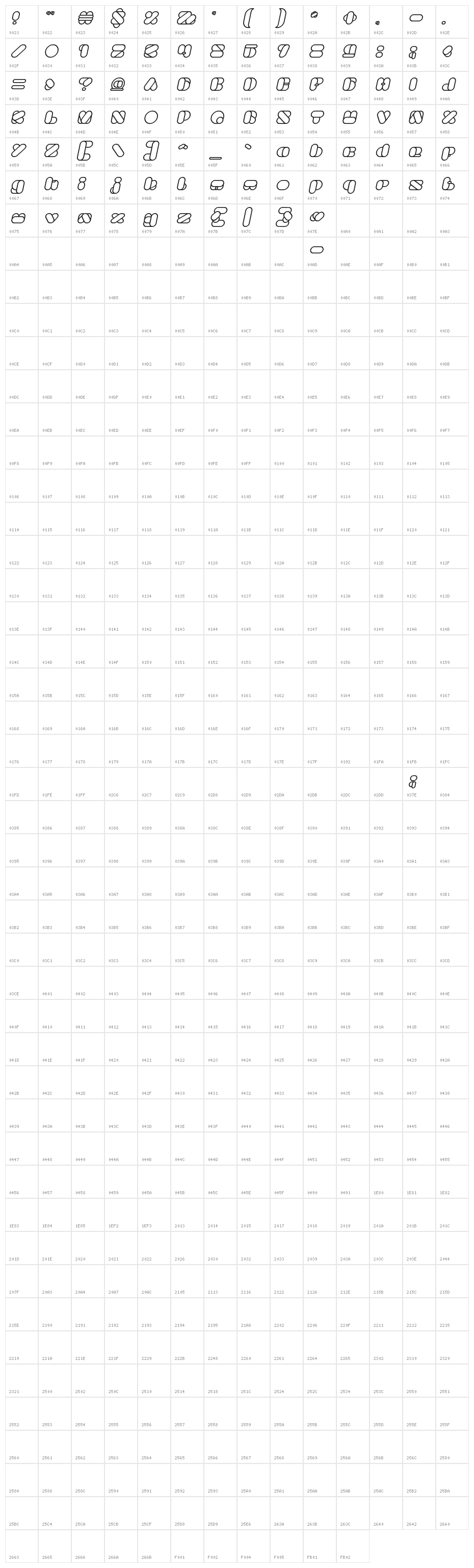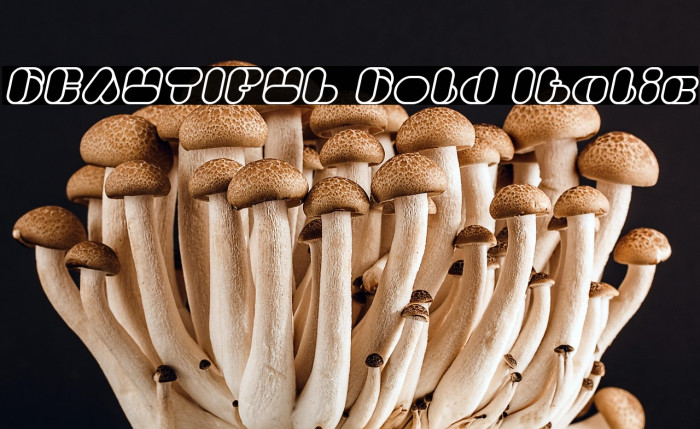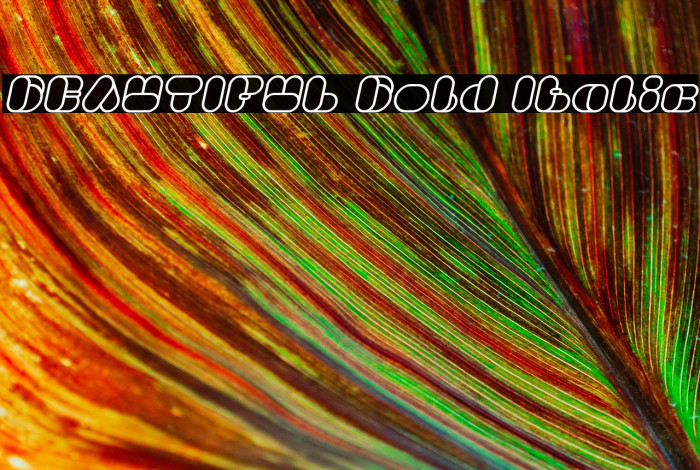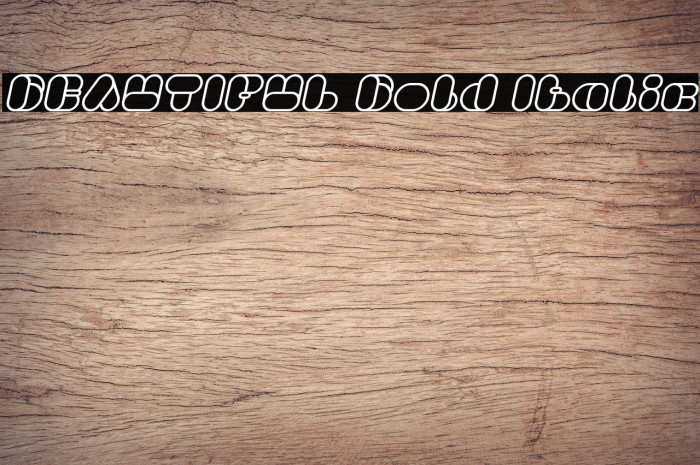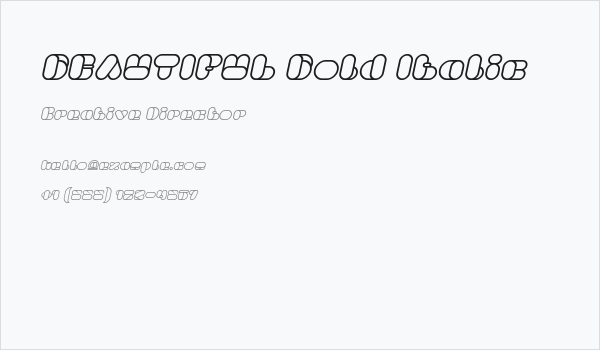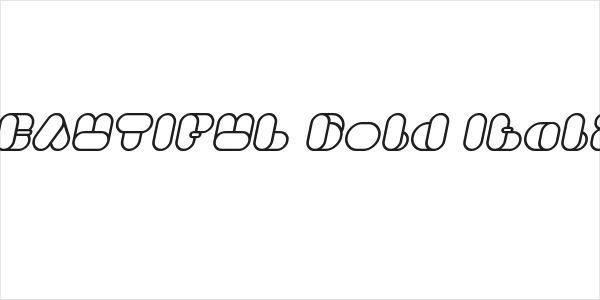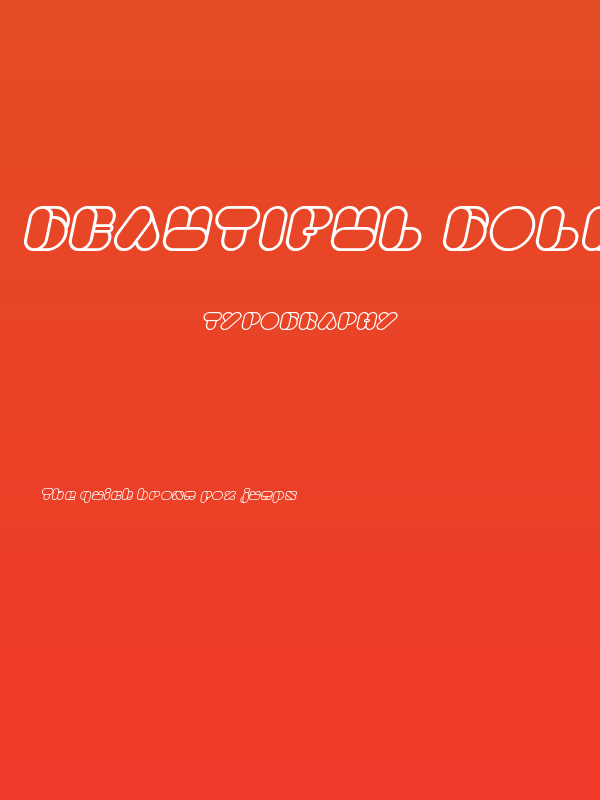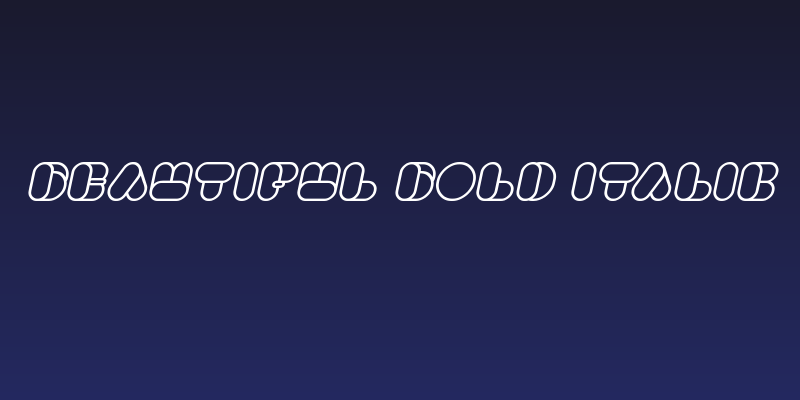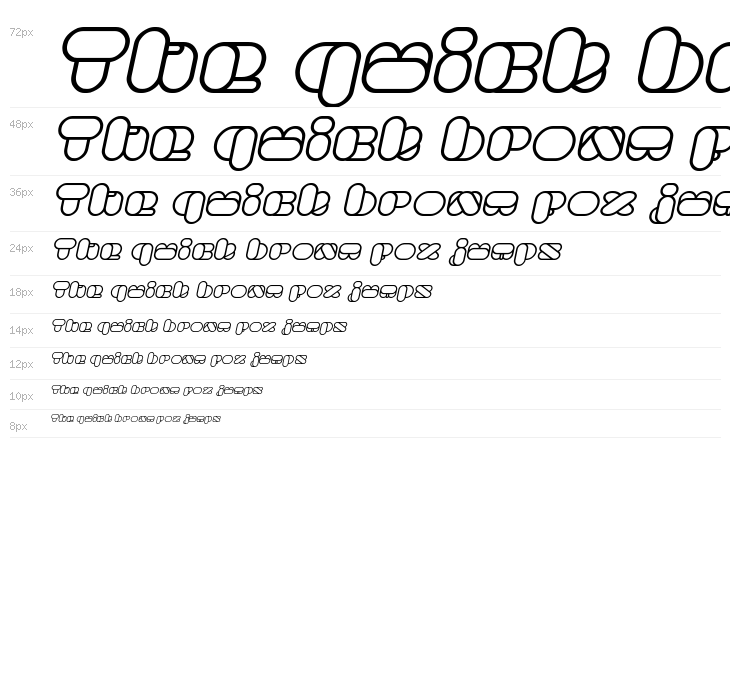
BEAUTIFUL Bold Italic Font
BEAUTIFUL Bold Italic Description
This font features a bold, italic style with a unique, decorative design. Each character is crafted with a continuous, looping line that creates a sense of movement and fluidity. The letters are outlined, giving them a hollow appearance that adds to their visual interest. The uppercase and lowercase letters maintain a consistent style, with rounded edges and a playful, modern aesthetic. Numbers and special characters are designed to match the overall theme, ensuring a cohesive look across all text elements. This font's distinct style makes it stand out, making it suitable for creative and artistic projects.